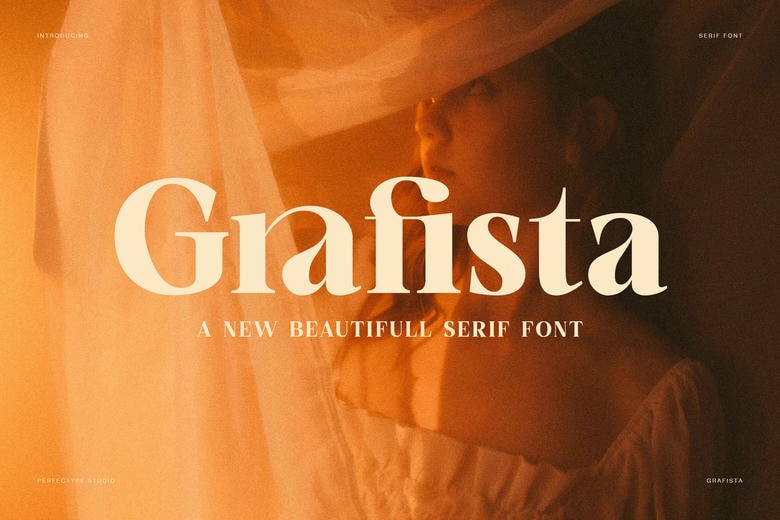
Grafista Font
Grafista is a sophisticated contemporary serif typeface designed to convey confidence, warmth and sophisticated simplicity. This font is stylish and composed at the first sight. Thus, it is a solid option among designs that prefer typography to be expressive, yet controlled.
Grafista is a combination of serif foundations that are classic, blended with smooth edges and contrasted. Consequently, every letterform looks smooth yet organised. The forms are natural, and the minor details also provide personality but not distracts. In addition, the general design is also cleaner and contributes to the font being timeless and versatile.
Grafista Serif Font